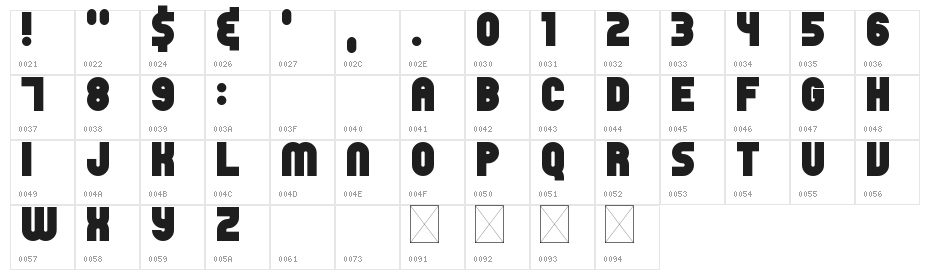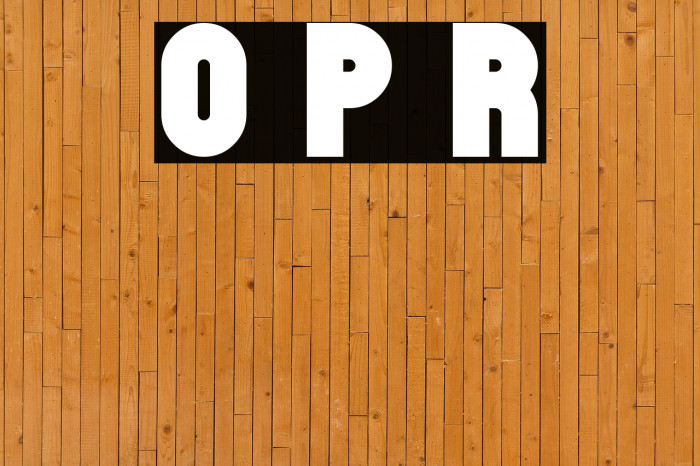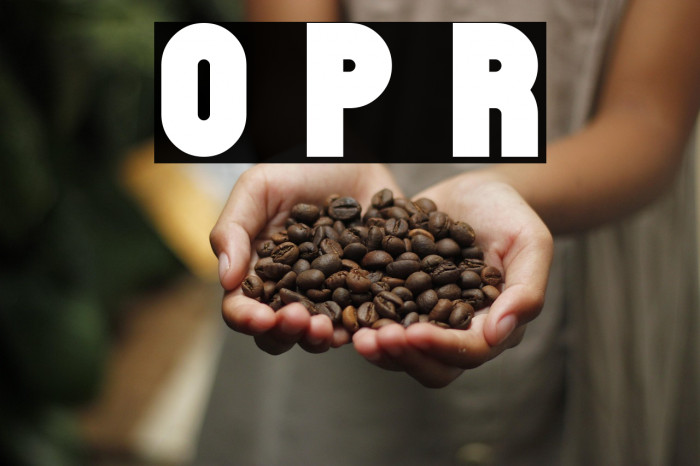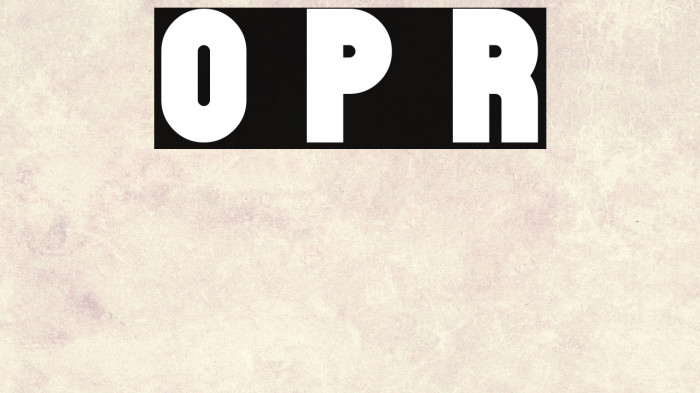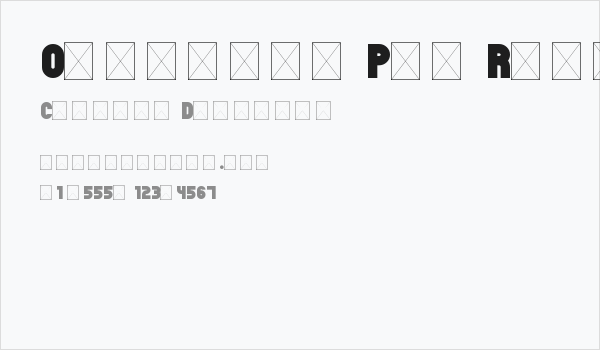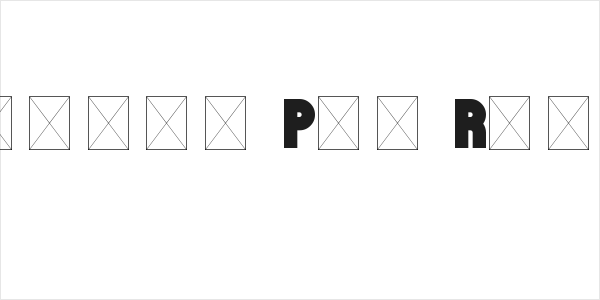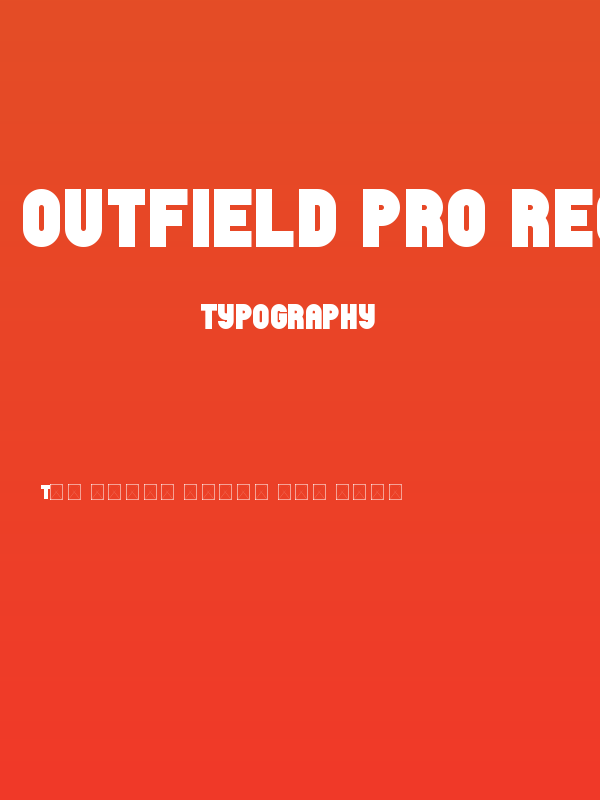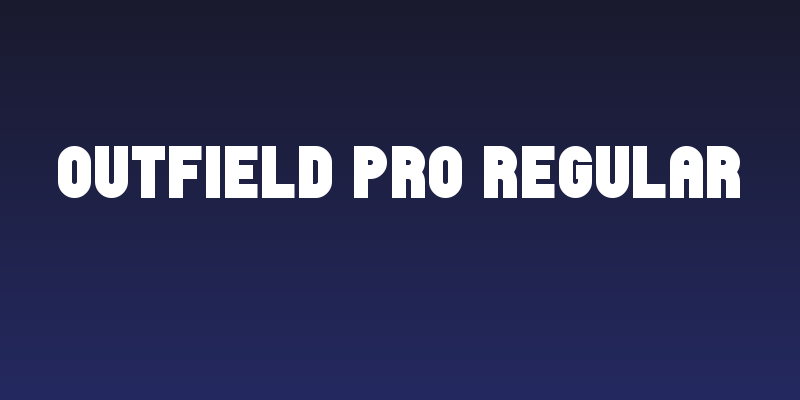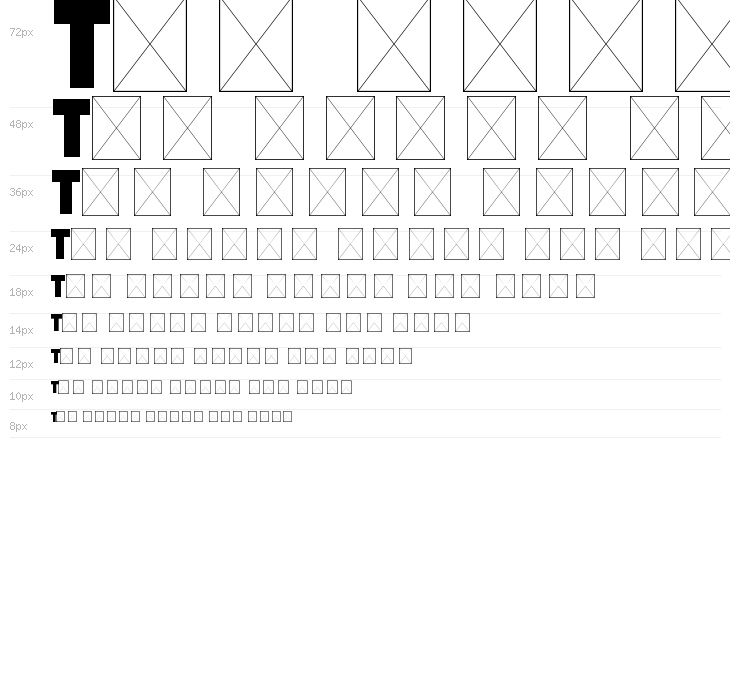
Outfield Pro Regular Font
Outfield Pro Regular Description
This font features bold, geometric letterforms with a strong presence. The characters are constructed with thick, uniform strokes that give them a solid and impactful appearance. The rounded edges soften the overall look, adding a touch of friendliness to the otherwise robust design. The uppercase letters are particularly striking, with a consistent height and width that create a harmonious balance. The numerals are equally bold, maintaining the same weight and style as the alphabet, ensuring a cohesive look across all characters. This font is ideal for making a statement, with its clear and legible design that stands out in any context.
| Proposed Projects | This font is perfect for branding projects, poster designs, and any application where a strong, impactful typeface is needed. |